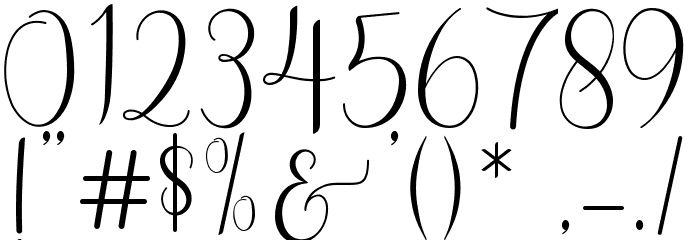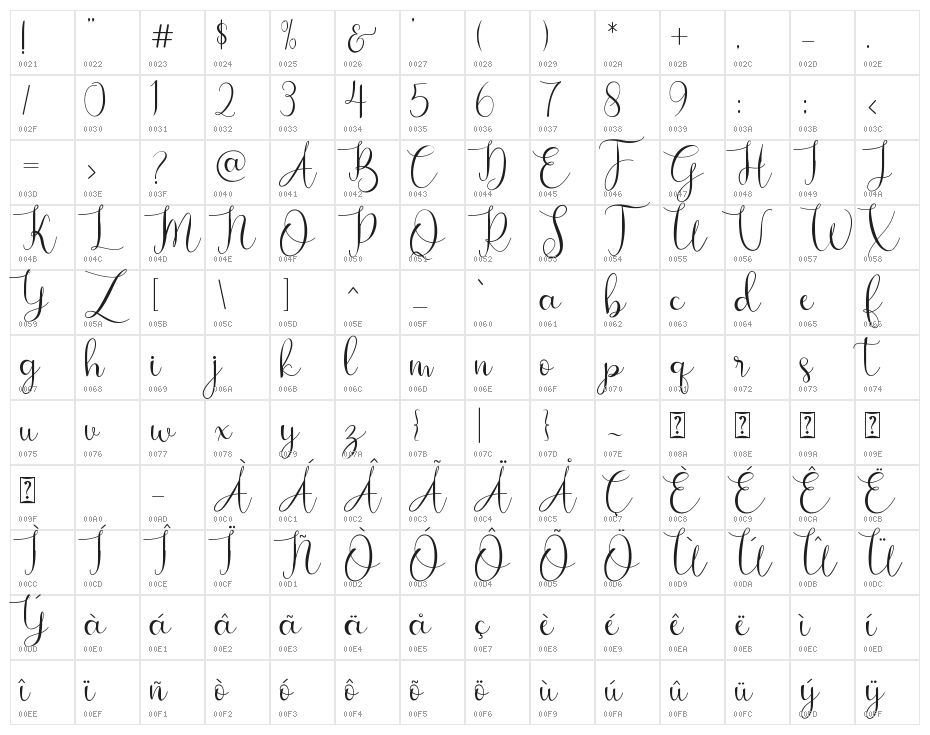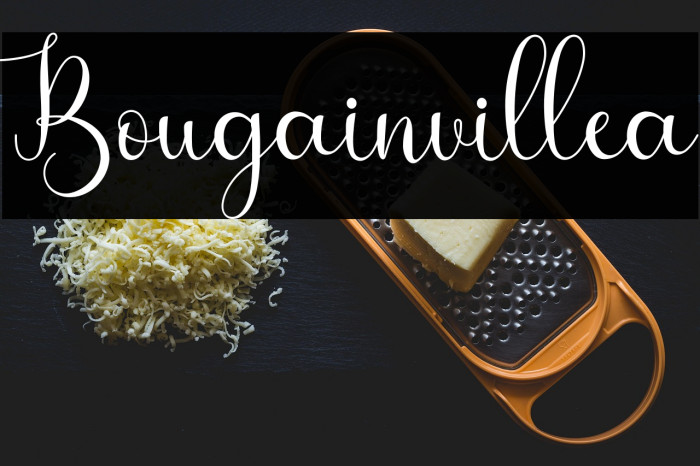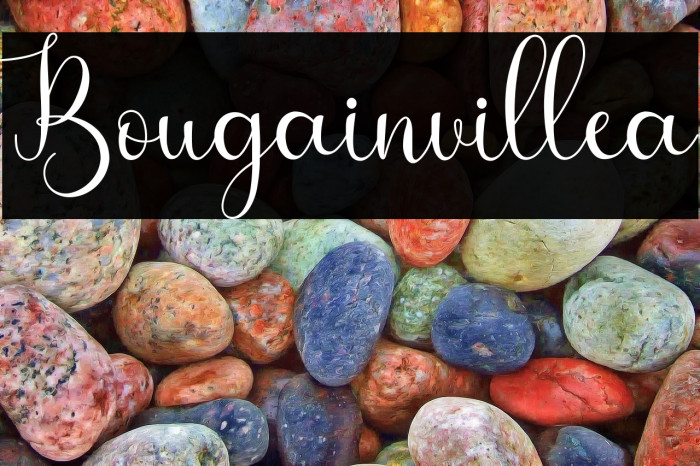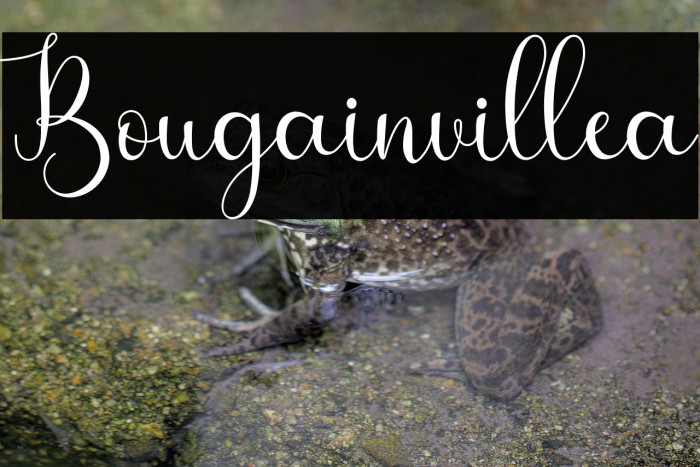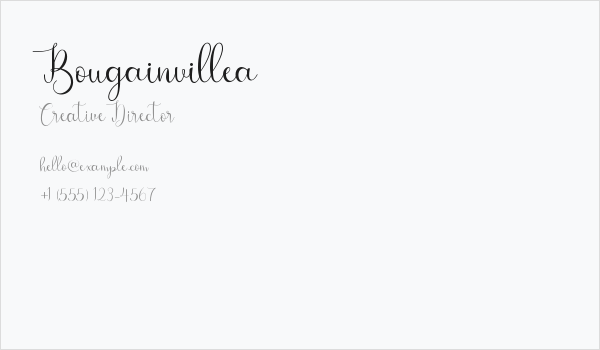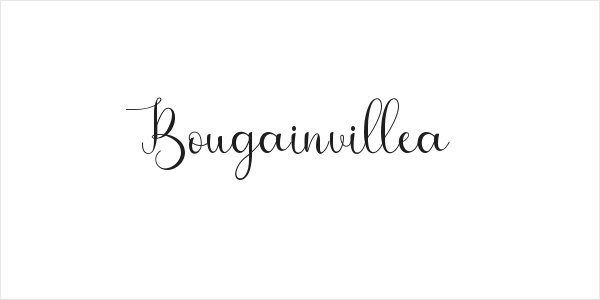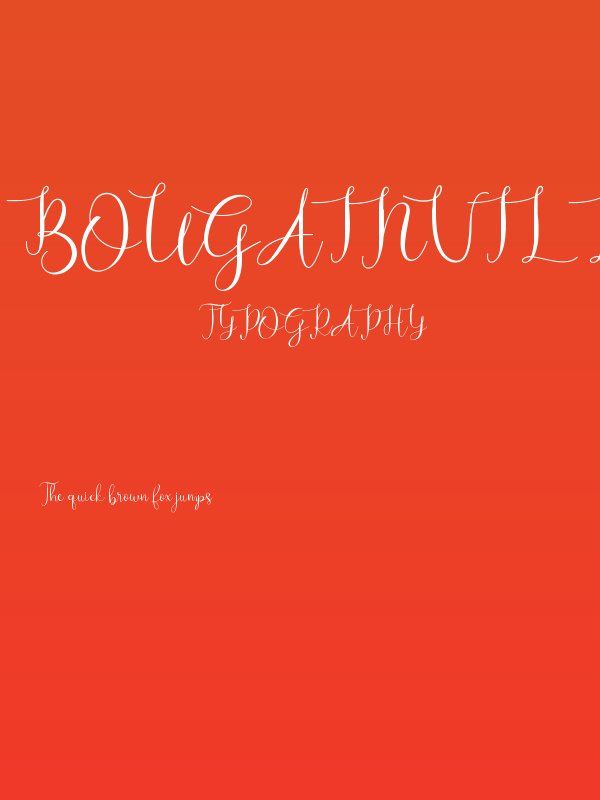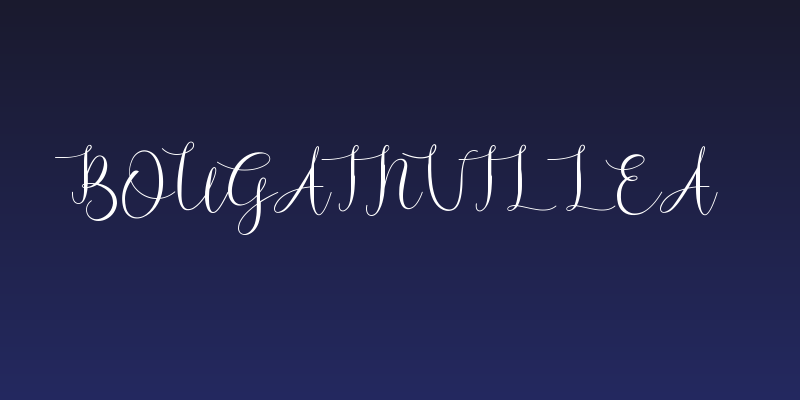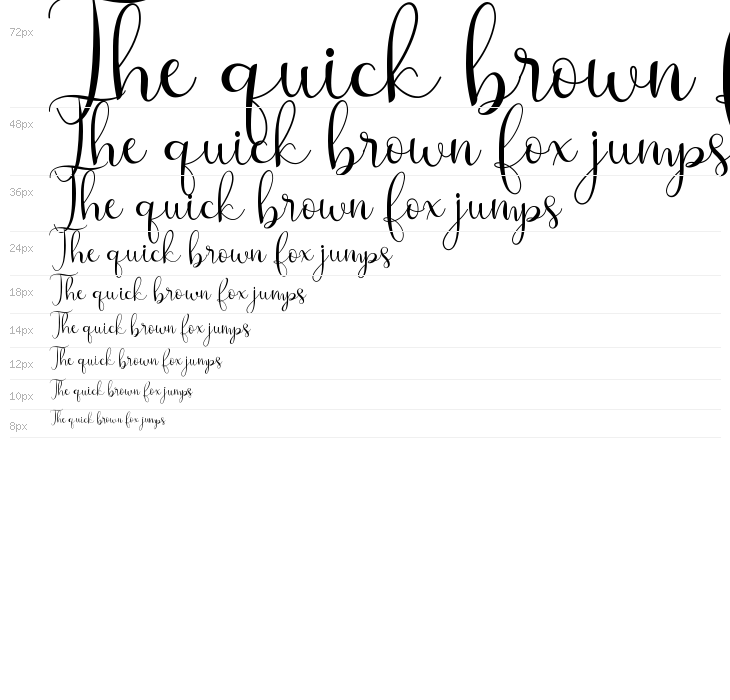
Bougainvillea Font
Bougainvillea Description
This elegant script font features a flowing, cursive style with delicate loops and swashes, giving it a sophisticated and artistic appearance. The uppercase letters are characterized by their tall, slender forms and intricate flourishes, while the lowercase letters maintain a consistent, graceful flow. The numerals are stylish and complement the overall aesthetic, with a slightly elongated form that adds to the font's charm. Special characters are thoughtfully designed, maintaining the font's cohesive look. This font is perfect for projects that require a touch of elegance and creativity.
| Overall Style | Elegant, Artistic |
| Proposed Projects | Ideal for wedding invitations, greeting cards, branding, and elegant logo designs. |